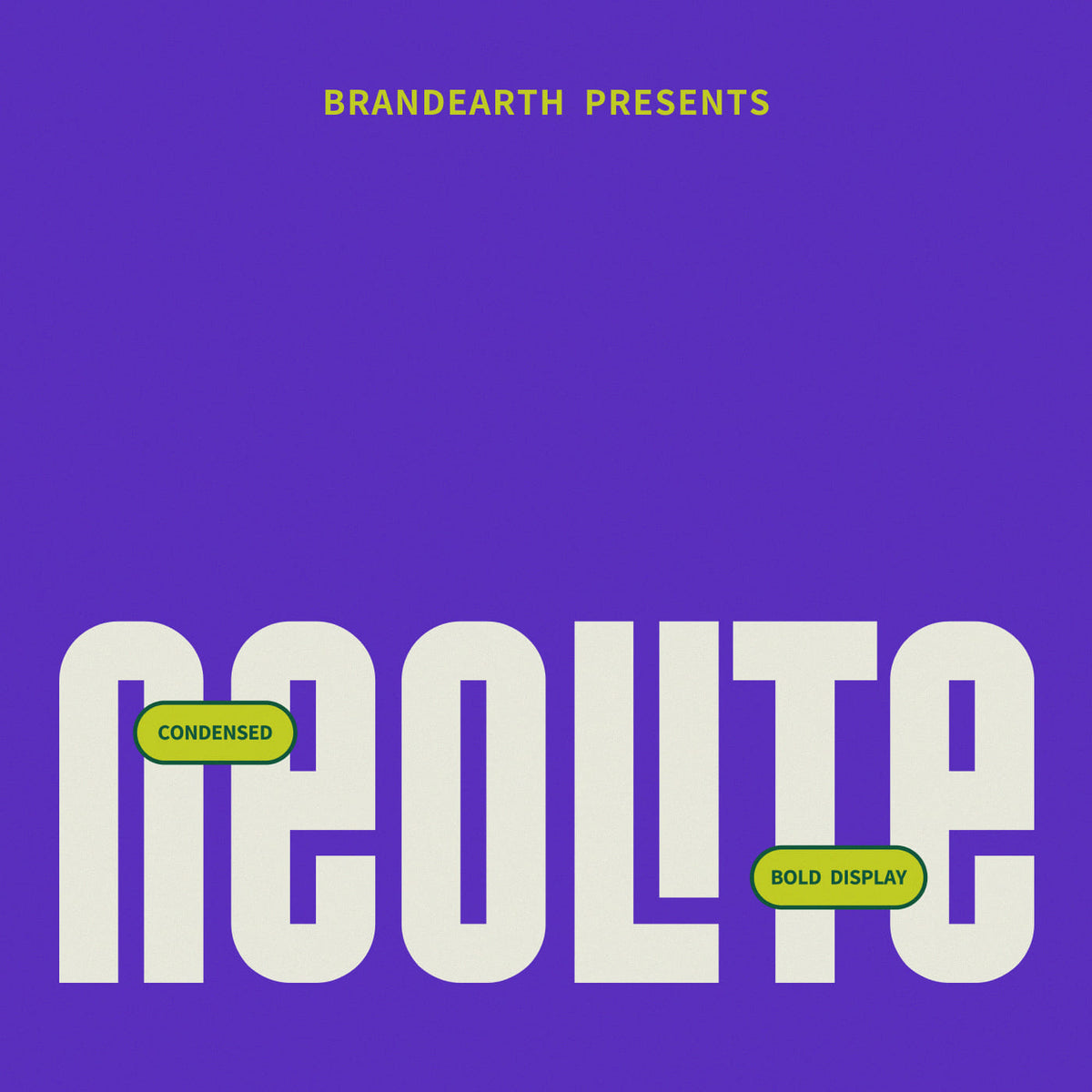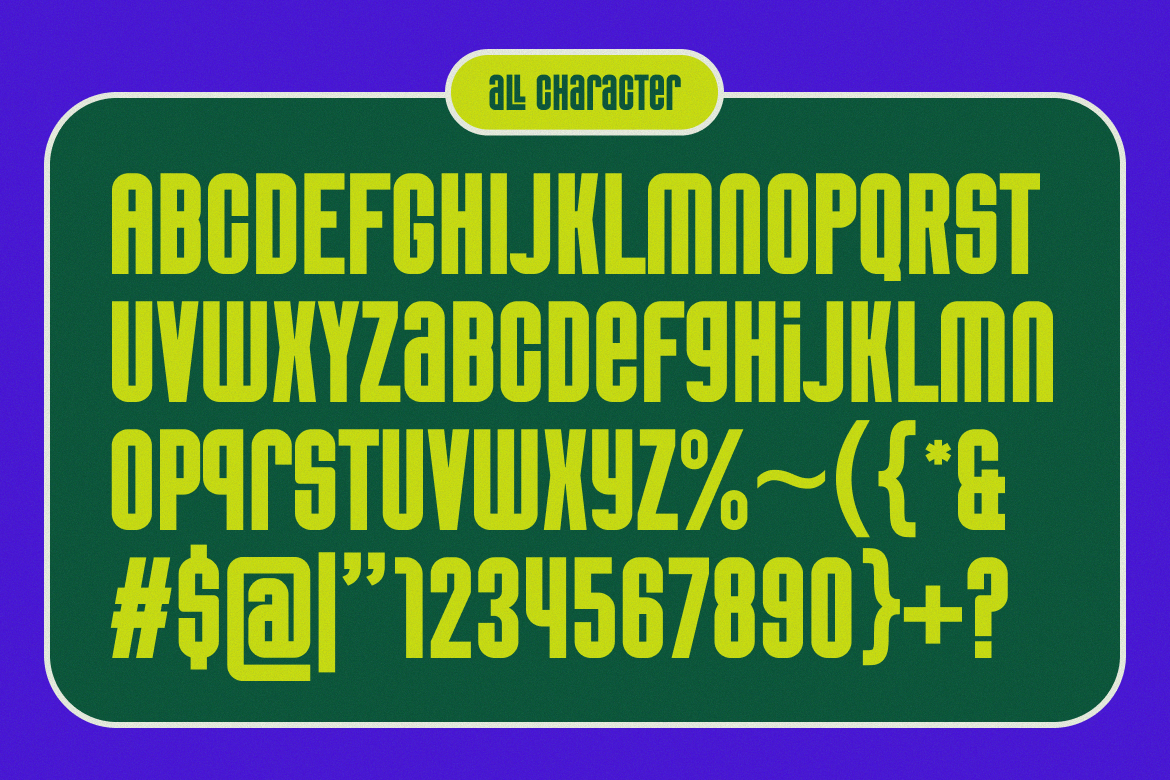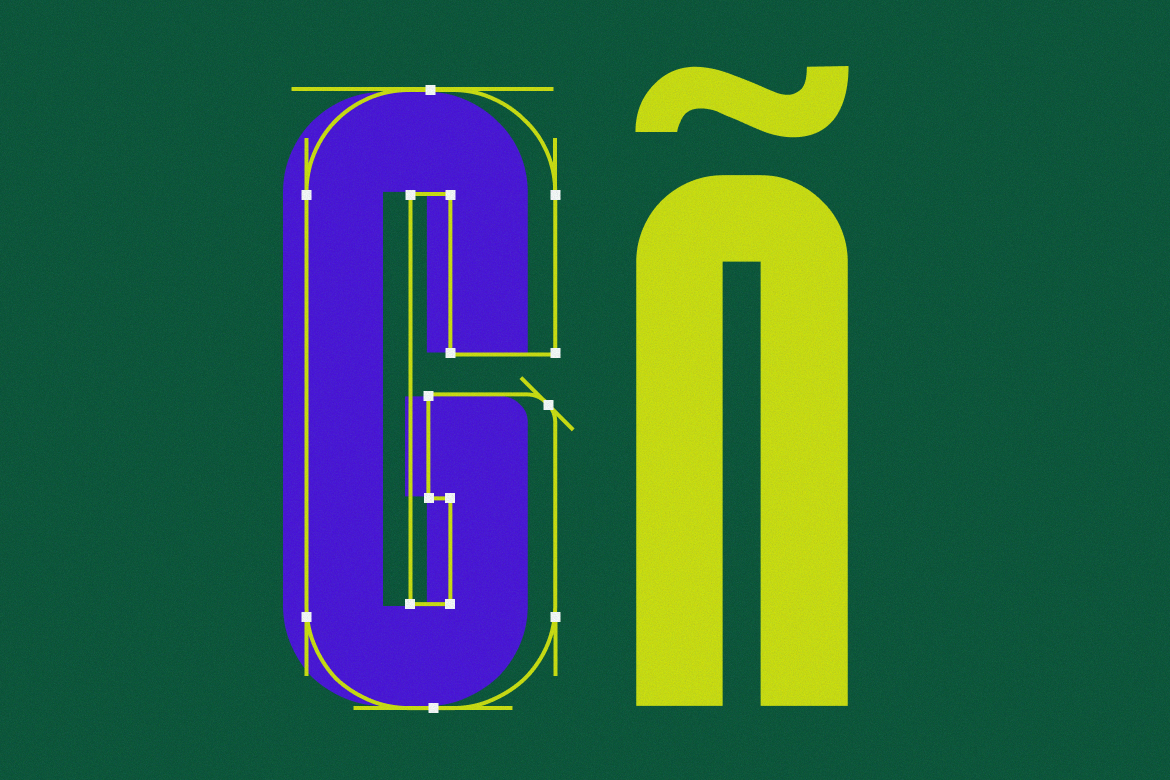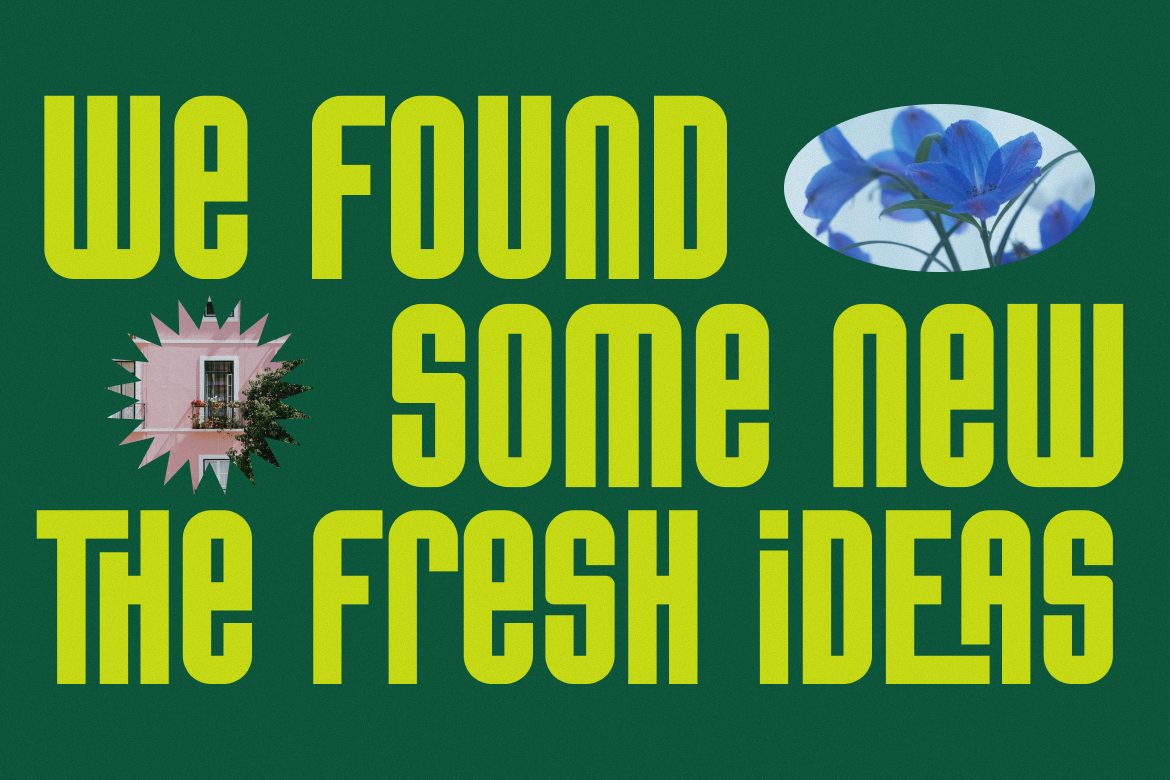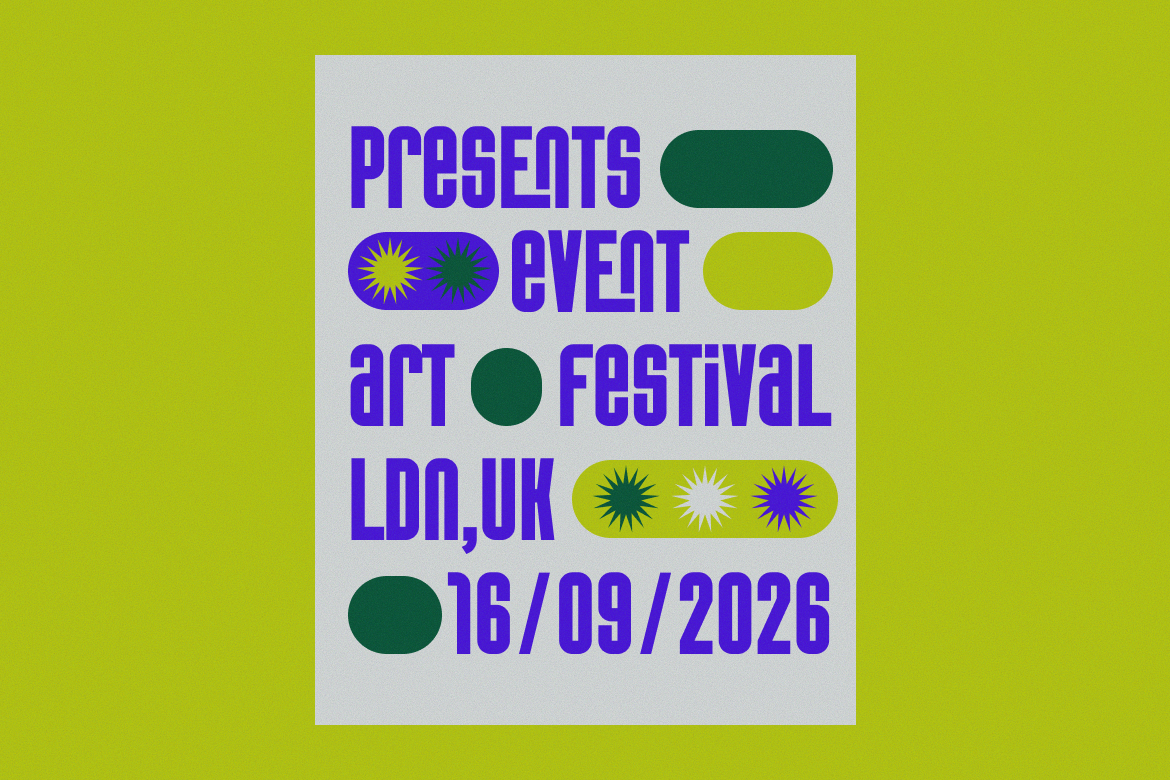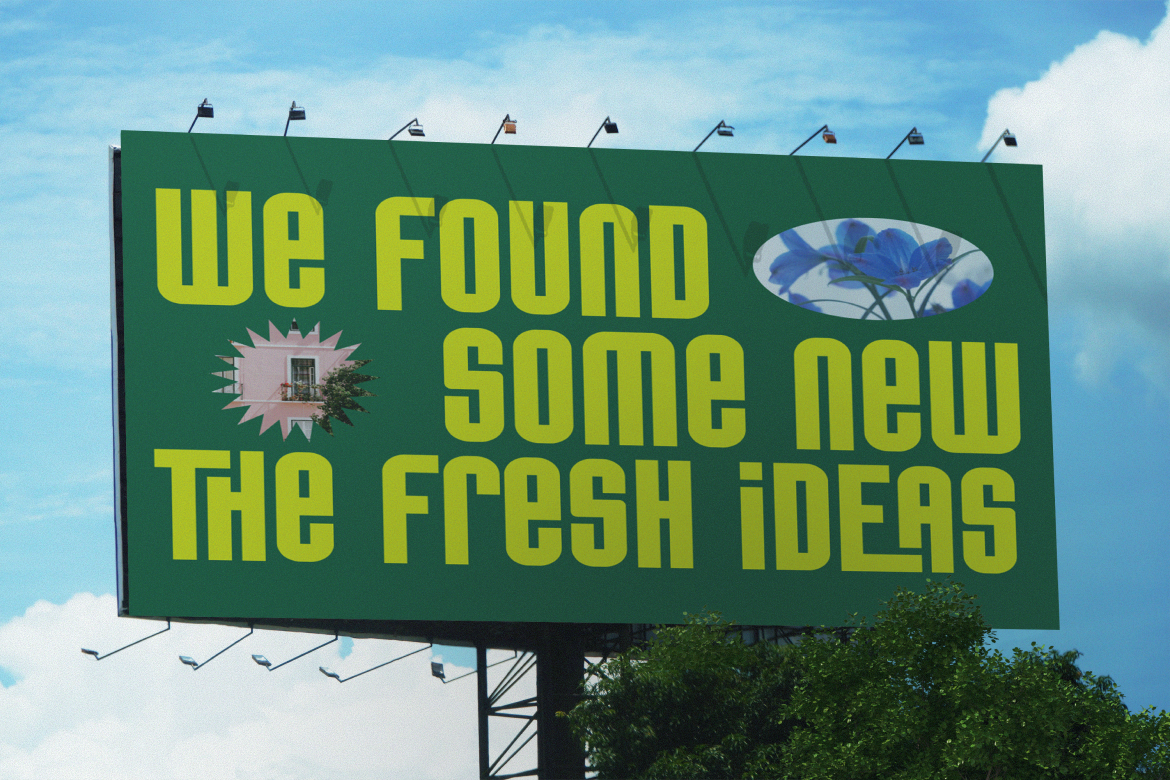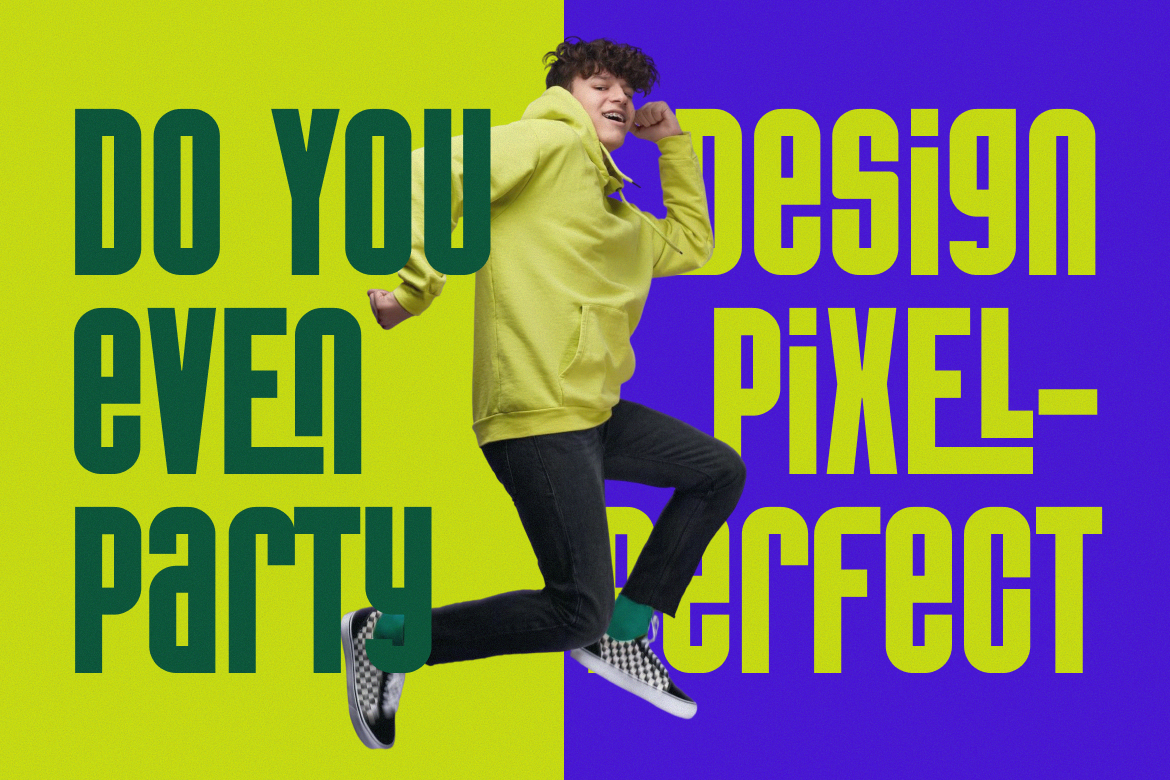
Neolite Condensed Bold Display Font
This font collection embraces a modular geometric sans serif style, featuring rounded corners, bold weight, and tall proportions. With its vibrant use of neon colors and pixel-perfect precision, it evokes a strong retro-futuristic and playful digital vibe. The design feels modern and tech-forward, yet rooted in nostalgic y2k aesthetics, making it ideal for youth-focused branding, event posters, creative campaigns, digital art exhibitions, and social media content.
Neolite Condensed Bold Display Font is a modular geometric sans serif with rounded corners, bold weight, and tall proportions, available in TTF, OTF, and WOFF formats. It includes uppercase and lowercase characters, ligatures, alternates, numerals, punctuation, and multilingual support.